Free fonts and typefaces can change the tone of a website, app screen, logo, poster, menu, package design, or social graphic before the reader reaches the first full sentence.
The font choices below cover display fonts, serif typefaces, sans serif fonts, monospace options, handwritten styles, rounded fonts, floral lettering, and experimental type.
Start with the job the type needs to do. Use bold display fonts for short headlines, food menus, packaging, and promotional graphics. Choose clean sans-serif or serif typefaces when a brand system needs a calmer voice. Pick monospace fonts for code editors, developer tools, technical UI, and symbol-heavy text.
Iosevka Font: Monospace for Coding
A free, open-source font family featuring monospace and quasi-proportional typefaces for coding, terminals, and technical documents.
Frankia Alternate: Free Gothic Display Font
A free Gothic display font that reinterprets the original Frankia typeface with geometric details inspired by medieval manuscripts.
Medeo Font Family: Free Sans, Serif, Mono & Pixel
A free, open-source font family for Latin and Cyrillic typography, featuring Sans, Serif, Mono, a Nerd Font edition, and five Pixel styles.
QIHIA Futuristic Display Font
A free futuristic display font for experimental, sci-fi, and modern visual work. The typeface suits bold headlines, posters, branding, and digital interface concepts. The download includes OTF and TTF font files for use across common design workflows.
Endless Free Geometric Sans Serif Font
A free, modern geometric sans serif font designed for versatile, everyday use.
The typeface carries a bold, functional character and works well for headlines, body text, and branding. It is free for personal and commercial work.
Free Gnocchi Font: A Gastronomic Typeface (.TTF)
A free gastronomic font for commercial use. Ideal for restaurant menus, food packaging, and branding projects.
Scampy: Free Sans Serif Font
A free sans-serif font that injects personality into typography. This typeface uses bold shapes and energetic details to make text command attention. It is a great choice for projects requiring a blend of retro appeal and modern confidence.
Scampy: Free Sans Serif Font
A free sans-serif font that injects personality into typography. This typeface uses bold shapes and energetic details to make text command attention. It is a great choice for projects requiring a blend of retro appeal and modern confidence.
Rondira Geometric Font
A geometric display font that adds a playful and quirky energy to design projects.
Its unique curves and bold personality are crafted for creating attention-grabbing visuals.
Myna Free Monospace Font
Monospace typeface designed for symbol-rich programming.
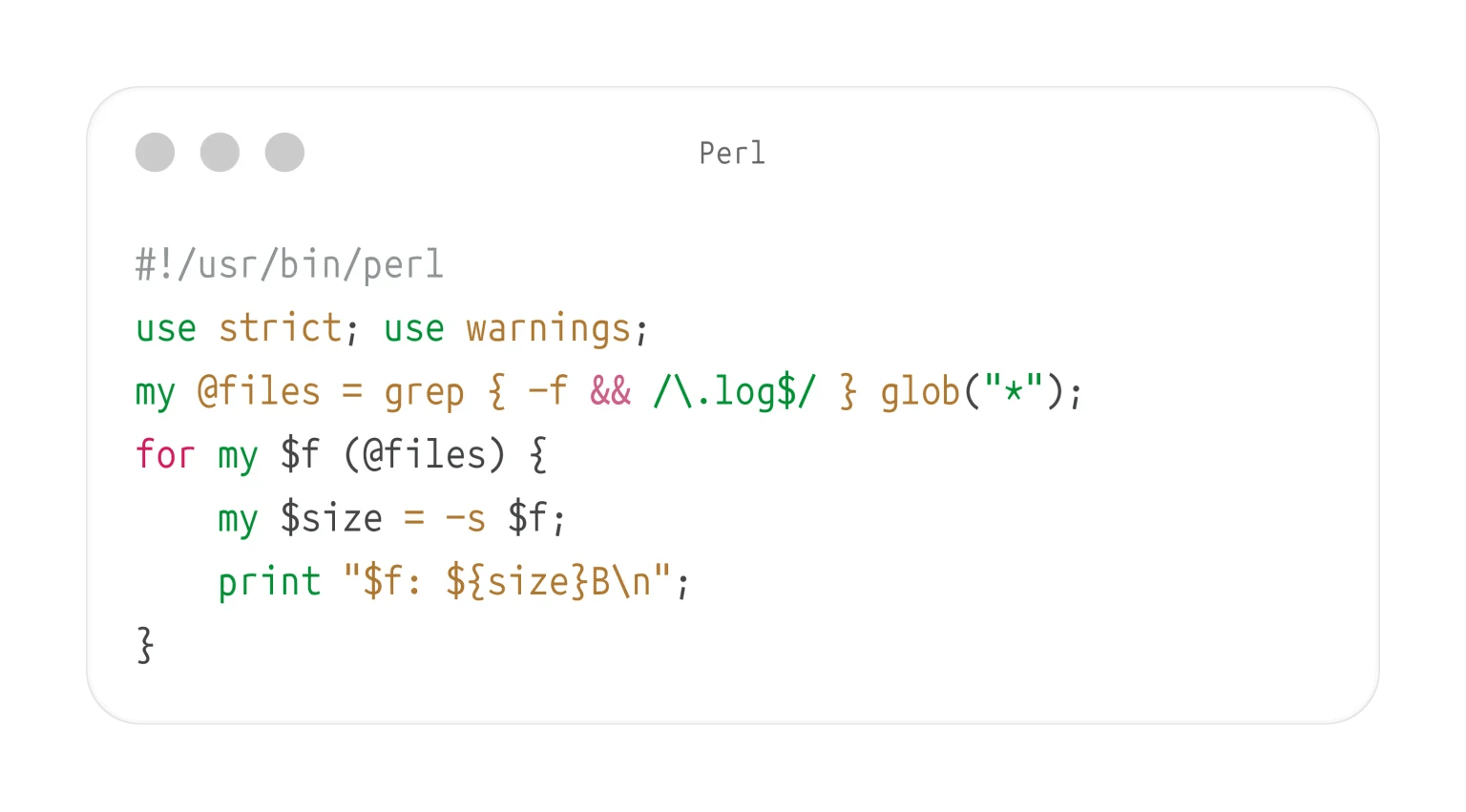
Arumira Modern Serif Font
A free modern serif font free for personal and commercial use.
Maple Mono Font
Maple Mono is an open source monospace font focused on smoothing your coding flow.
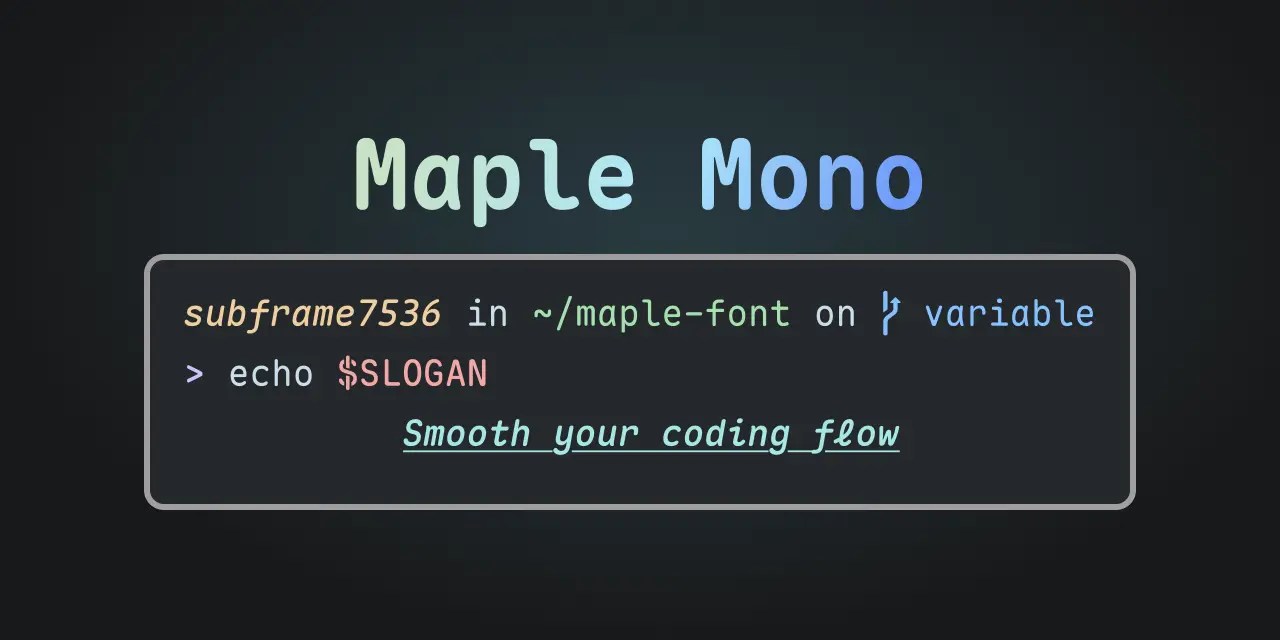
Google Sans Code
Google Sans Code is a fixed-width, geometric sans-serif typeface developed to complement Google’s corporate branding fonts. Derived from our other brand fonts, this typeface has been crafted specifically for writing and reading code, and enhanced for clarity at text dimensions typically used in programming interfaces.
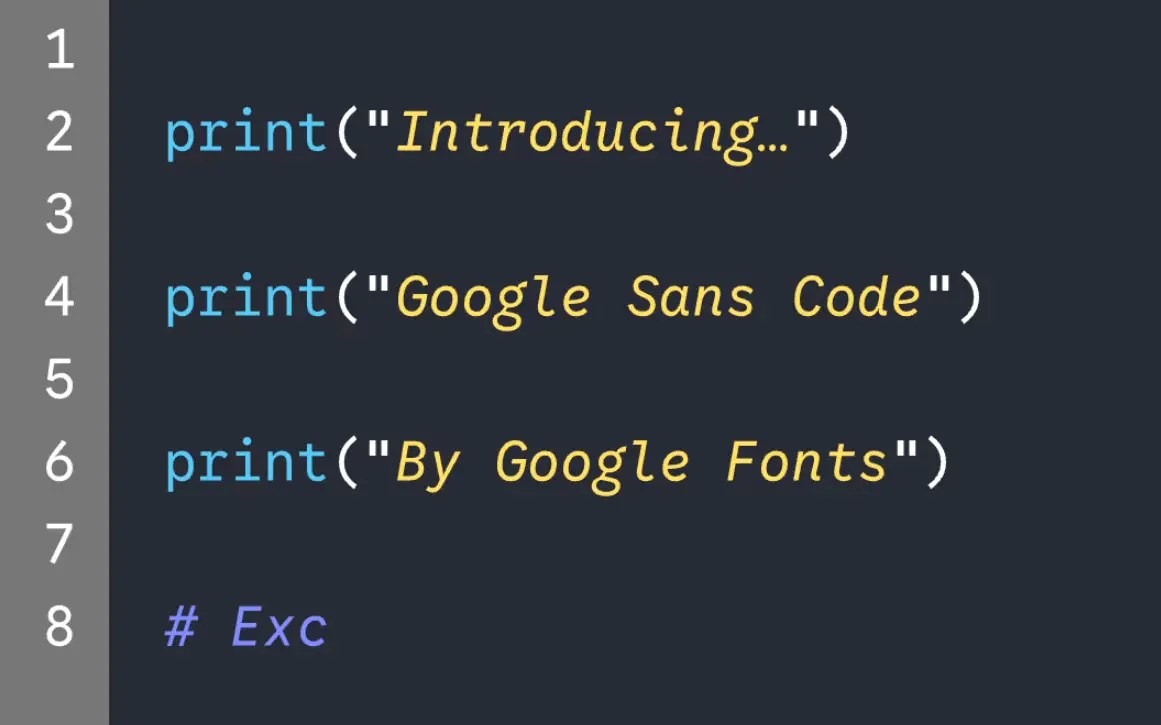
Maple Mono Monospace Font
Maple Mono is an open-source monospace font focused on smoothing your coding flow. It was created to enhance the working experience for developers and designers.
The font addresses common issues of code readability and visual strain through its clean design and intelligent features.
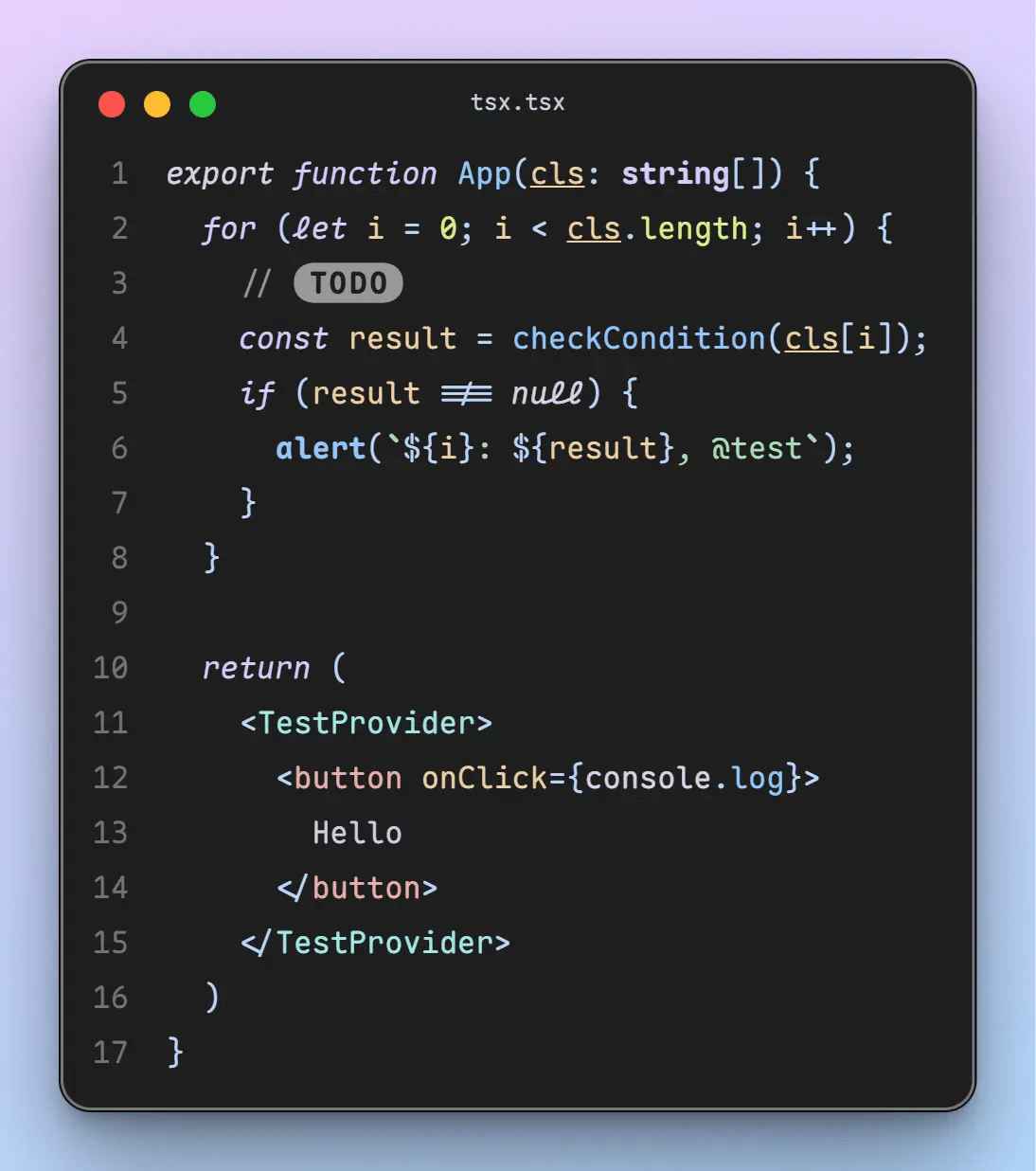
Geometric Rounded Typeface for Modern Branding
Chicoree is a free, geometric, rounded display typeface that pairs smooth rounded curves with a clean, professional structure.
The two-weight family delivers clear hierarchy while the friendly letterforms keep text approachable across both digital and print formats.
Boatica Bold Display Typeface
Boatica is a bold display font features soft curves and rounded corners.
This typeface is a good choice for projects that need a friendly yet impactful feel.
Its design helps designers create clear and stylish visuals for various communication needs where a casual tone is suitable.
LUNNA Floral Font
An elegant floral font with smooth, rounded corners. Free for personal and commercial use.
WOOBLY Bold Display Font
A free display font that offers a bold, cheerful character.
Annotation Mono Font
A free and open-source font designed for designers and programmers.
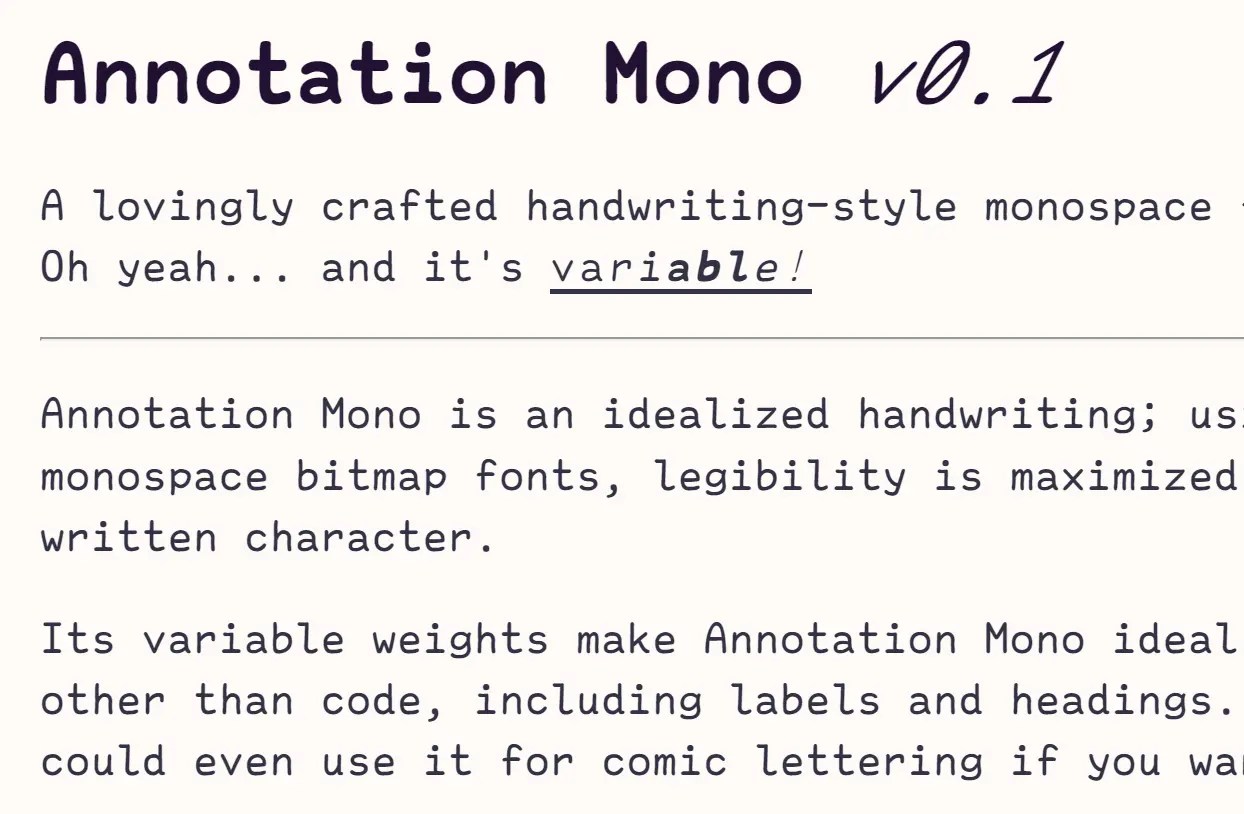
Squarella Rounded Font
A free geometric font that has a clean, minimalist style with rounded corners.
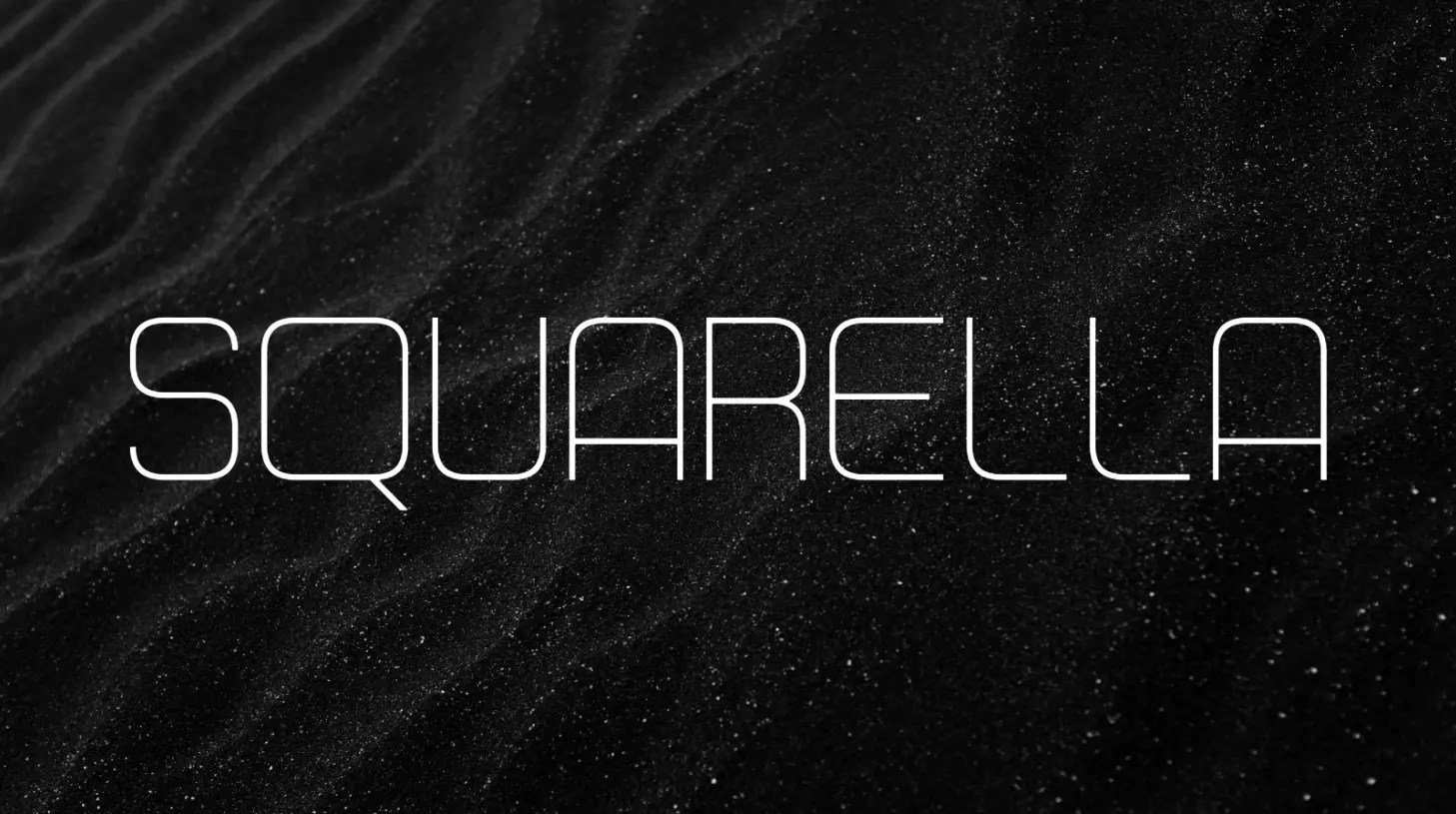
Hebdomadal
A free and open-source chaotic display typeface.